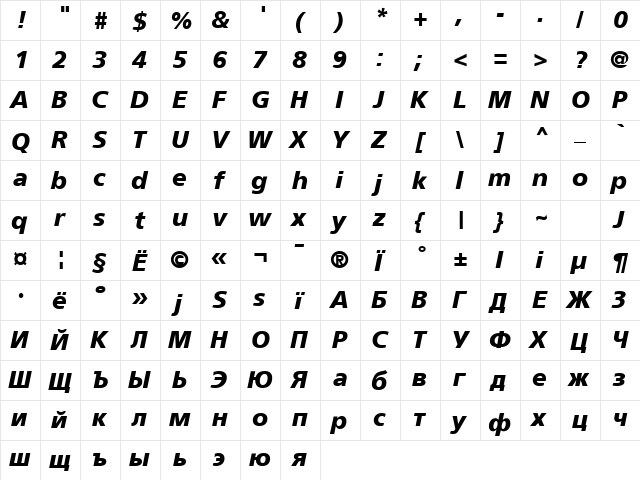
Foreigner Bold-Italic Font Preview
Design Context for Foreigner Typeface
Foreigner takes a measured approach to typography — its balanced proportions and neutral character make it a reliable workhorse for both digital and print work. The slanted form adds forward momentum and visual energy. The heavy weight commands attention and anchors typographic hierarchies.